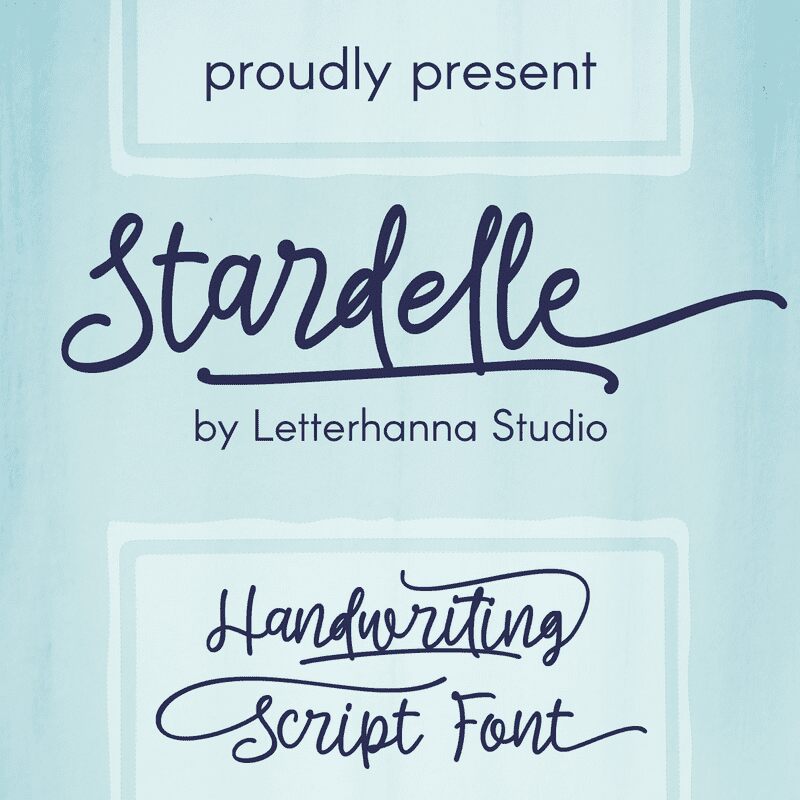
Stardelle font family from Letterhanna Type Foundry is a free font family that features artistic handwritten letterforms emphasizing genuine beauty. Sign with style, and keep it simple with this classic font with a stylish casual penmanship feel. Each letter presents an organic design with a contemporary concept. And with two font styles to choose from, you can use this free-flowing display font for both headlines and body copy, creating a joyful typography experience.
Pick a font style and use these dreamy characters for posters that feature photographers, artists and designers, business cards, magazine titles, and fashion and jewelry shop signs. And with the comfort they bring, Stardelle fonts can give special greeting cards a unique design with dashing authentic strokes that match the prepared message.
Introducing 'Stardelle,' a bold and beautifully handcrafted font that adds a touch of elegance to your designs. With its flowing lines and abundant swashes, 'Stardelle' exudes charm and sophistication. This handwritten font is perfect for adding a personal and artistic flair to invitations, posters, branding, and more. Let 'Stardelle' illuminate your creativity and bring a touch of magic to your projects.